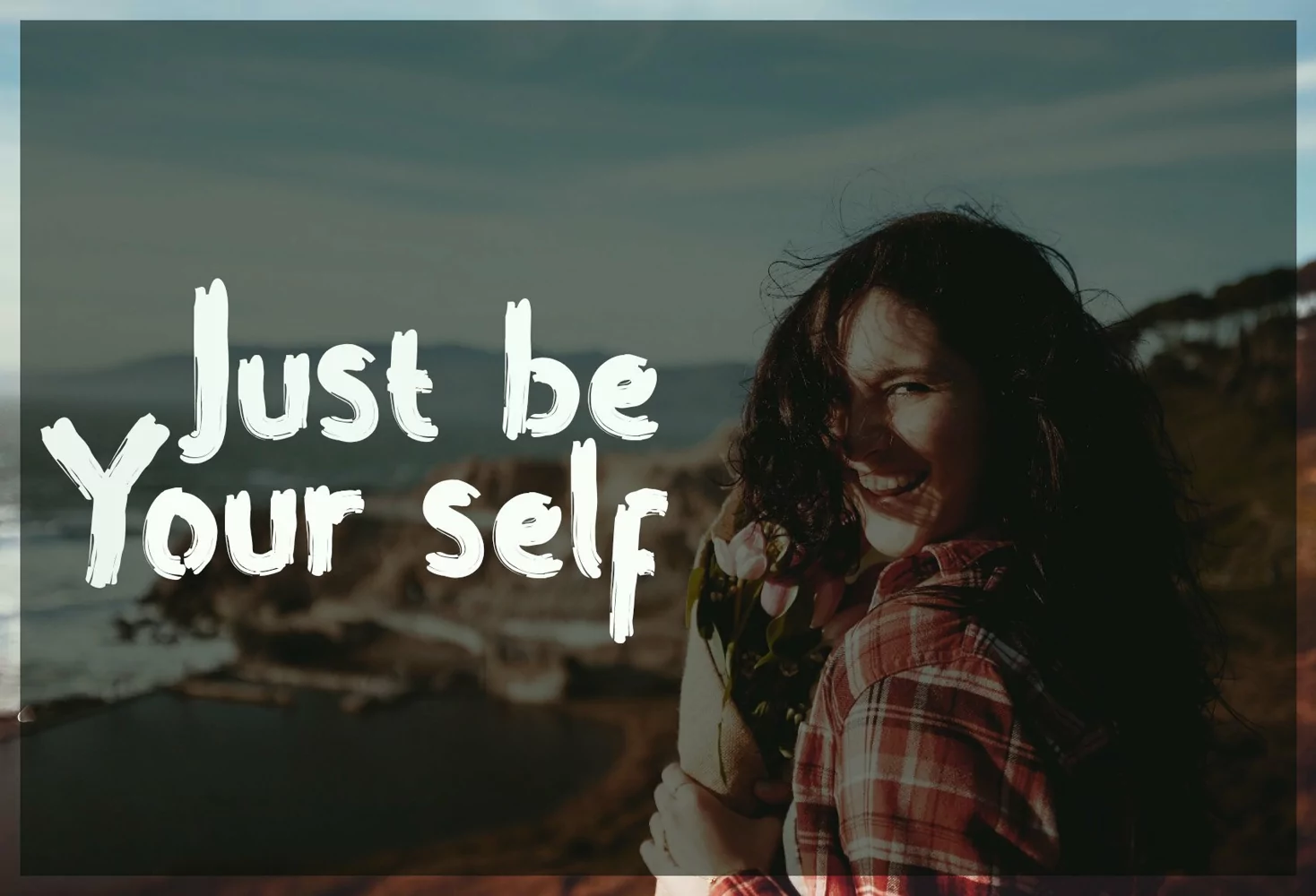
PILOX is handmade brush style font . Very cool for logos, name tag, handwritten quotes, product packaging, merchandise, social media & greeting cards. And very easy to make design t-shirts and other products. Very save time in making the design of a product. It contains a full set of lower & uppercase letters, a large range of punctuation, numerals, and multilingual support. Whats Include : - PILOX OTF - PILOX TTF To access the alternate glyphs, you need a program that supports OpenType features such as Adobe Illustrator CS, Adobe Photoshop CC, Adobe Indesign and Corel Draw. Thank You!